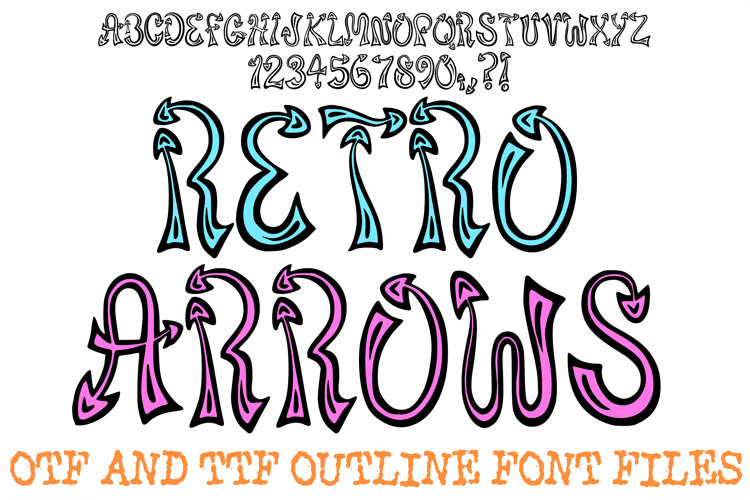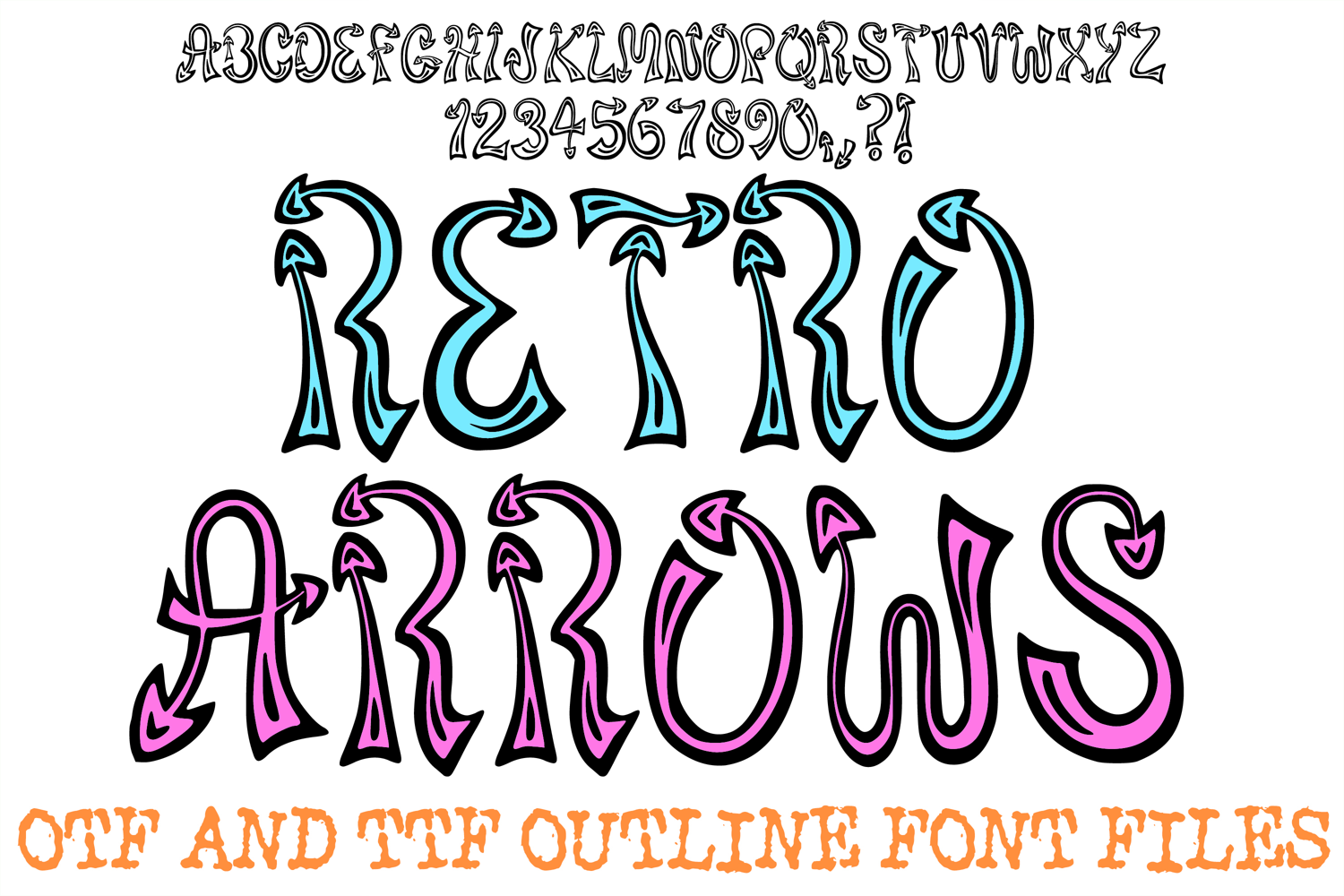
Retro Arrows ABC Font Typeface Alphabet OTF TTF Illustration
Bring a groovy, dynamic energy to your graphic layouts with Retro Arrows, an installable display font featuring whimsical, flowing letterforms accented with stylish arrow points on the terminals. Blending vintage 70s flair with playful direction, this creative typeface offers an eye-catching aesthetic for branding, apparel, and craft projects.
Ideal For:
Crafts & Event Decor: Party banners, event signage, greeting cards, and whimsical sticker packs.
Apparel & Merch: Retro t-shirts, hoodies, tote bags, and vintage-inspired accessories.
Digital & Graphic Design: Poster headers, social media graphics, digital scrapbooking, and logo accents.
Vinyl & Cutting Projects: Craft machine creations, custom decals, stencil designs, and stationery artwork.